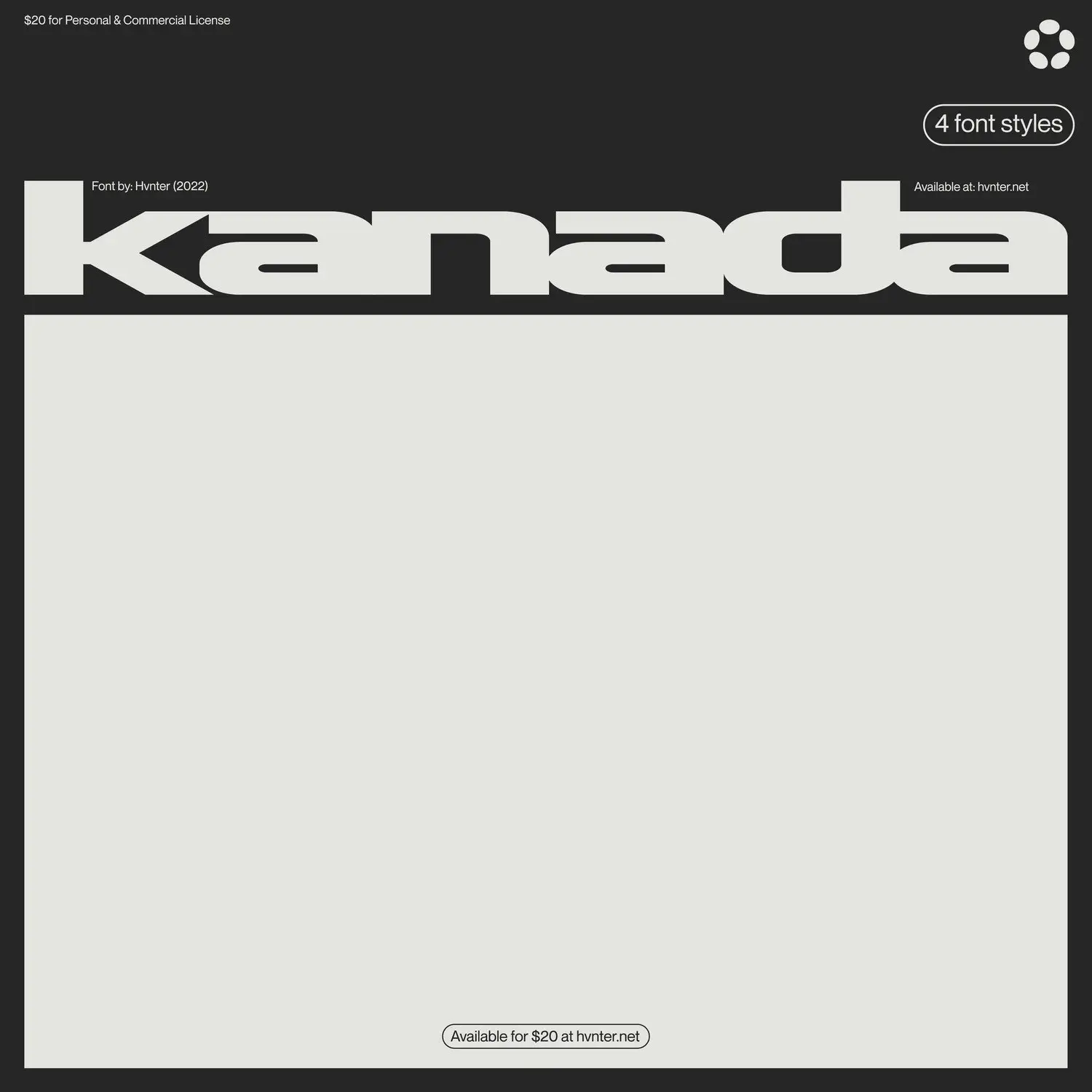
Kanada Typeface: Elevate Your Design with Unique Fonts
Looking for a versatile font that adds character to your projects? The Kanada Typeface is your perfect solution. This font package includes four distinct styles, allowing you to express your creativity in various ways.
The Kanada Typeface is a carefully crafted font collection designed for graphic designers, artists, and anyone looking to enhance their visual content. With its unique styles, this typeface is ideal for branding, posters, and digital projects.
- ✅ Four Font Styles → Choose from Regular, Italic, Wide, and Wide Italic to suit your design needs.
- ✅ Comprehensive Character Set → Covers A-Z, 0-9, and basic symbols, ensuring versatility in your text.
- ✅ Unique Aesthetic → Perfect for streetwear, grunge, and Y2K-inspired designs, adding a trendy touch to your projects.
The Kanada Typeface stands out with its unique styles that cater to modern design trends. Whether you are creating promotional materials for a streetwear brand or designing an eye-catching poster, this typeface will help you achieve a professional look. Trusted by designers worldwide, it brings a fresh perspective to typography.